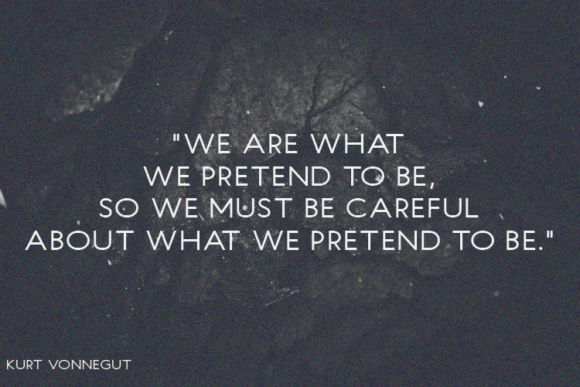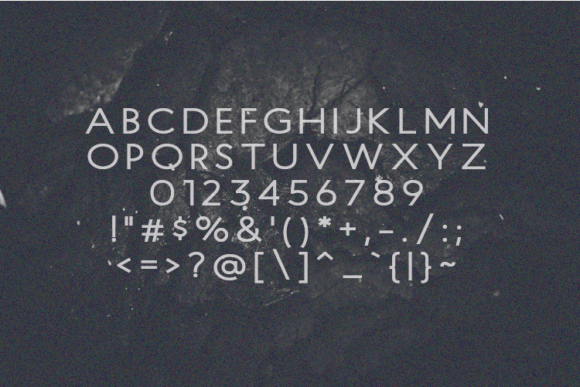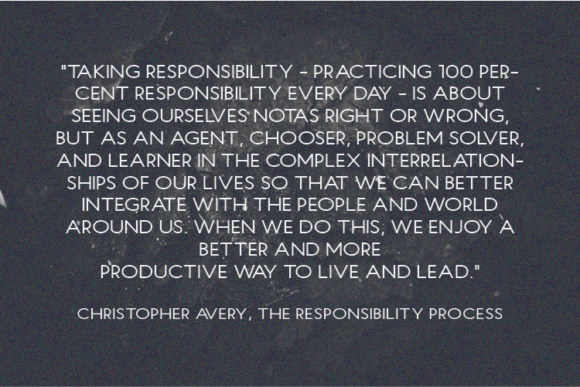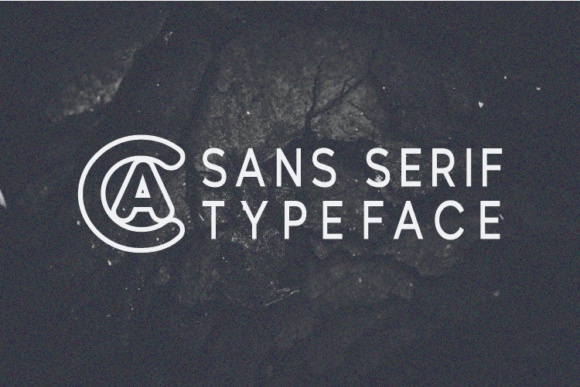
Introducing Healthy Font: The Modern, Classy Choice for Designers and Crafters
In the world of typography, a font can make all the difference in the aesthetic and tone of a design. For designers and crafters looking for a modern, classy sans serif typeface, Healthy Font is an excellent choice. This versatile font is perfect for a wide range of applications, from logos and weddings to invitations, quotes, advertisements, print, magazines, and more!
What Makes Healthy Font Stand Out?
Healthy Font boasts a clean, minimalist design that exudes sophistication and elegance. Its sans serif style gives it a contemporary look that’s perfect for designs that require a fresh, modern feel. The font’s versatility lies in its ability to adapt to various design contexts, making it an excellent addition to any designer’s or crafter’s toolkit.
Key Features of Healthy Font
- Modern and Classy Design: Healthy Font’s sleek, sans serif design makes it perfect for creating modern, high-end designs.
- Extremely Versatile: Use Healthy Font for logos, weddings, invitations, quotes, advertisements, print, magazines, and more!
- Easy to Read: The font’s clear, clean lines ensure that your text is easy to read, even at small sizes.
- Highly Customizable: Healthy Font can be easily customized to fit your design needs, from adjusting font sizes to experimenting with different colors and textures.
Use Cases for Healthy Font
Healthy Font’s versatility makes it suitable for a wide range of design applications. Here are some use cases to get you started:
- Logos and Branding: Create a modern, professional logo that stands out with Healthy Font.
- Weddings and Invitations: Add a touch of elegance to your wedding invitations, save-the-dates, and other stationery with Healthy Font.
- Quotes and Typography: Use Healthy Font to create stunning typographic quotes, posters, and prints.
- Advertisements and Marketing: Healthy Font is perfect for creating eye-catching advertisements, flyers, and marketing materials.
- Print and Magazines: Use Healthy Font in your print designs, such as magazines, brochures, and catalogs, to add a modern touch.
Tips for Using Healthy Font Effectively
To get the most out of Healthy Font, here are some tips to keep in mind:
- Experiment with Font Sizes: Healthy Font looks great at various font sizes, so don’t be afraid to experiment to find the perfect size for your design.
- Play with Colors and Textures: Add depth and interest to your design by experimenting with different colors and textures.
- Pair with Other Fonts: Healthy Font pairs well with other fonts, so try combining it with serif or script fonts to create visual interest.
Healthy Font is a modern, classy sans serif typeface that’s perfect for designers and crafters looking for a versatile font for their designs. With its clean design, ease of use, and high customizability, Healthy Font is an excellent choice for a wide range of applications. Whether you’re creating logos, wedding invitations, or advertisements, Healthy Font is sure to elevate your designs to the next level.